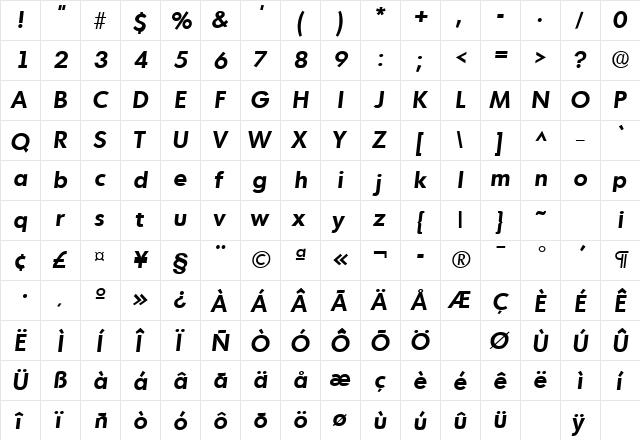
Montreal Bold Italic
Design Context for Montreal Typeface
Montreal is a composed and adaptable typeface that performs quietly and consistently across a wide range of design contexts. Its italic angle brings a sense of urgency and motion to the letterforms. Its bold stroke weight gives it real presence on the page.
Pro Tip: Use Montreal for emphasis, pull quotes, and subheadings where its slanted energy can add rhythm to the layout.